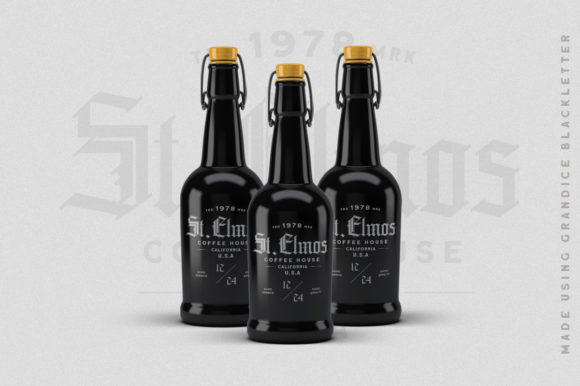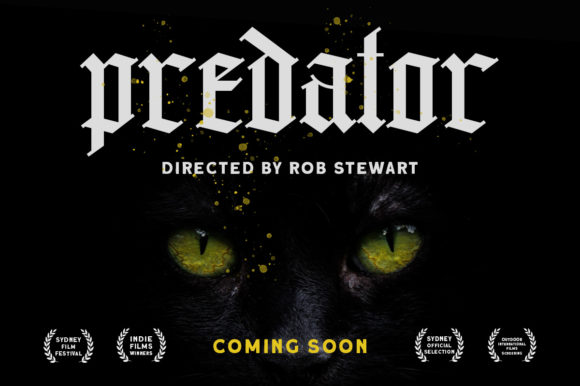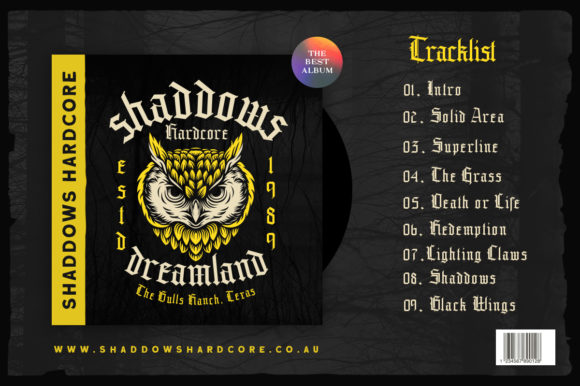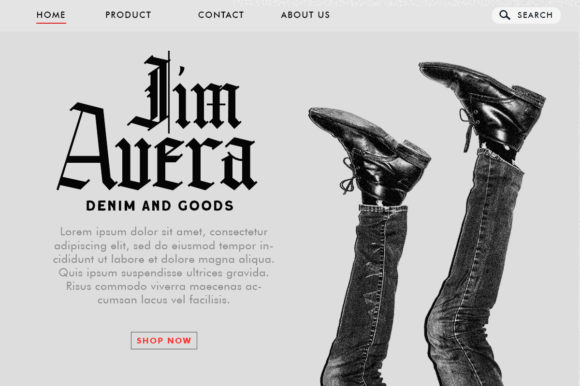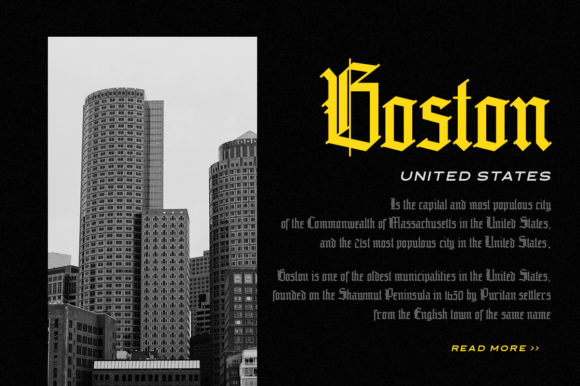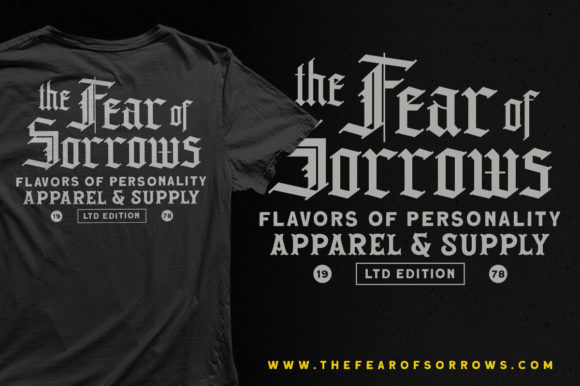
Introducing Grandice Font: The Ultimate Gothic Blackletter Font for Creative Projects
Are you a designer, crafter, or creative enthusiast looking for a unique and eye-catching font to elevate your projects? Look no further than Grandice Font, a stunning gothic styled blackletter font that’s sure to make your ideas stand out. In this article, we’ll dive into the world of Grandice Font, exploring its features, benefits, and uses, as well as provide tips on how to incorporate it into your creative workflow.
What is Grandice Font?
Grandice Font is a beautiful gothic styled blackletter font that’s perfect for adding a touch of elegance and mystery to your creative projects. Its intricate and ornate design makes it ideal for use in a variety of applications, from digital designs to print materials. Whether you’re working on a logo, poster, or social media graphic, Grandice Font is sure to add a level of sophistication and style that’s hard to match.
Features of Grandice Font
So, what makes Grandice Font so special? Here are just a few of its key features:
- Gothic Styled Blackletter Design: Grandice Font boasts a classic gothic styled blackletter design that’s both elegant and edgy.
- Intricate and Ornate: The font features intricate and ornate details that add a level of sophistication and style to your designs.
- Highly Versatile: Grandice Font can be used in a variety of applications, from digital designs to print materials.
- Easy to Read: Despite its ornate design, Grandice Font is highly legible and easy to read, making it perfect for use in body text and headlines.
Benefits of Using Grandice Font
So, why should you choose Grandice Font for your creative projects? Here are just a few benefits of using this amazing font:
- Adds a Touch of Elegance: Grandice Font adds a level of elegance and sophistication to your designs that’s hard to match with other fonts.
- Perfect for Gothic and Vintage Designs: If you’re working on a gothic or vintage-inspired design, Grandice Font is the perfect choice.
- Helps Your Designs Stand Out: With its unique and eye-catching design, Grandice Font is sure to make your designs stand out from the crowd.
- Highly Customizable: Grandice Font can be easily customized to fit your design needs, from adjusting the font size to adding effects and textures.
How to Use Grandice Font in Your Designs
Now that we’ve covered the features and benefits of Grandice Font, let’s talk about how to use it in your designs. Here are a few tips to get you started:
- Use it as a Title Font: Grandice Font is perfect for use in titles and headlines, where its ornate design can really shine.
- Add it to Your Logo Designs: If you’re working on a logo design, consider using Grandice Font to add a touch of elegance and sophistication.
- Mix it with Other Fonts: Grandice Font pairs well with a variety of other fonts, so don’t be afraid to experiment with different font combinations.
- Experiment with Effects and Textures: To really make Grandice Font pop, try adding effects and textures, such as gold foil or distressed textures.
In conclusion, Grandice Font is a stunning gothic styled blackletter font that’s perfect for adding a touch of elegance and mystery to your creative projects. With its intricate and ornate design, highly versatile nature, and ease of use, Grandice Font is sure to become a go-to font in your design arsenal. So why wait? Add Grandice Font to your creative ideas today and notice how it will make them stand out!